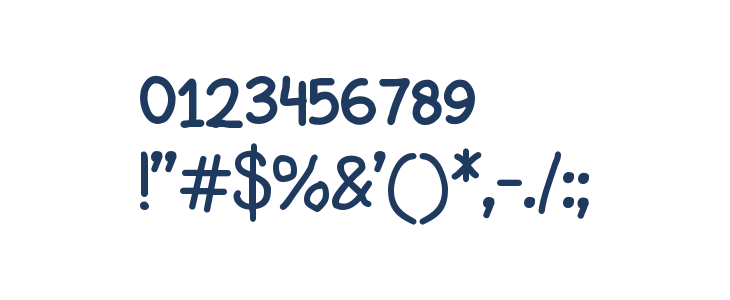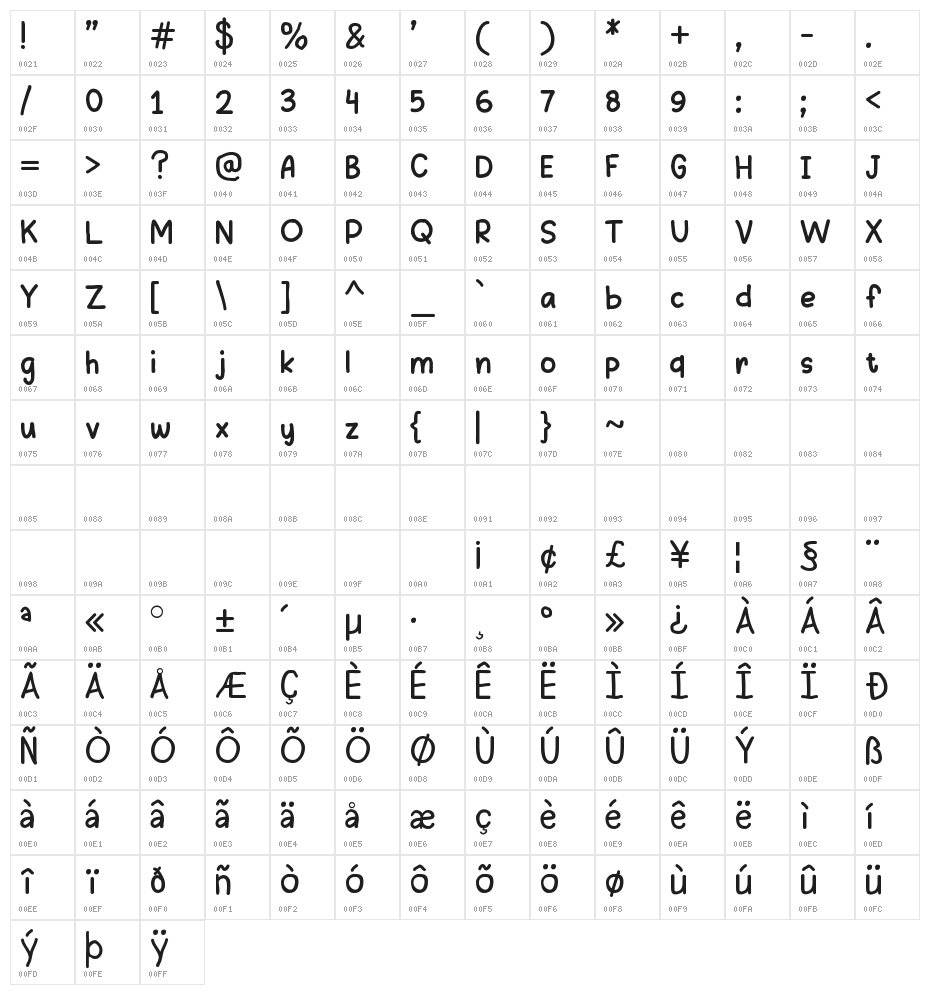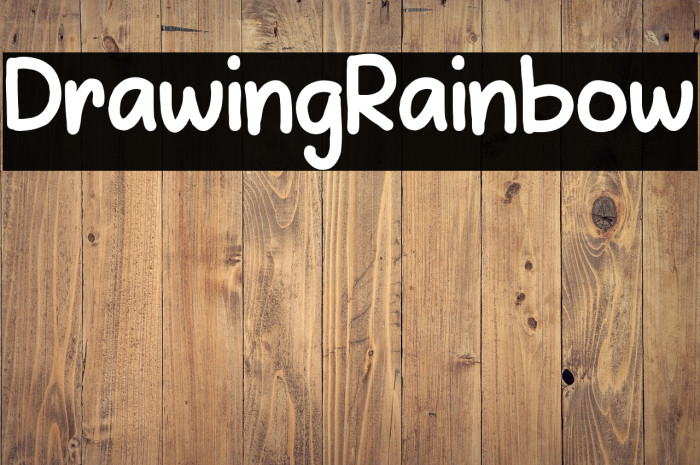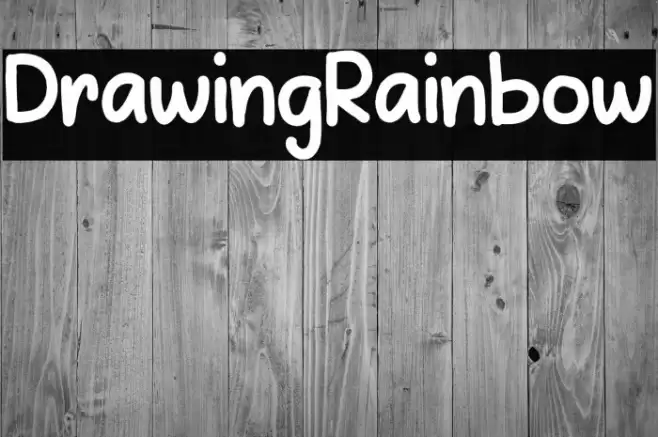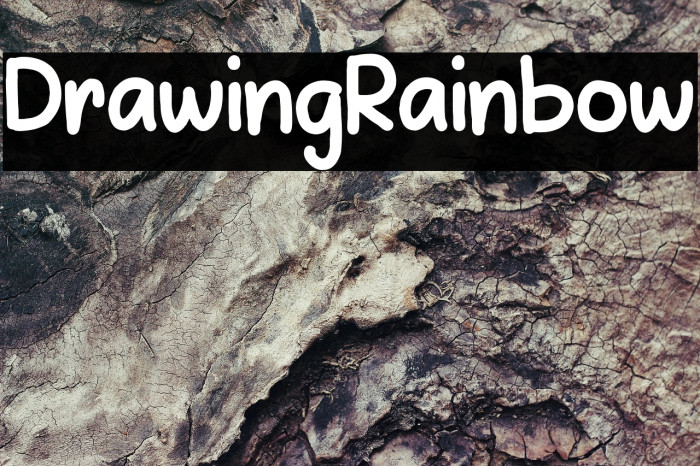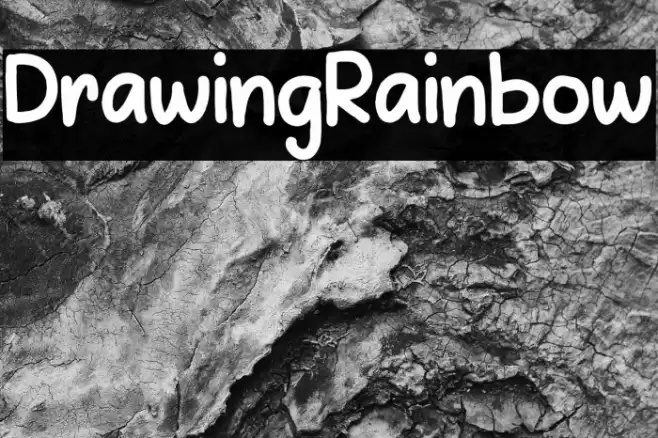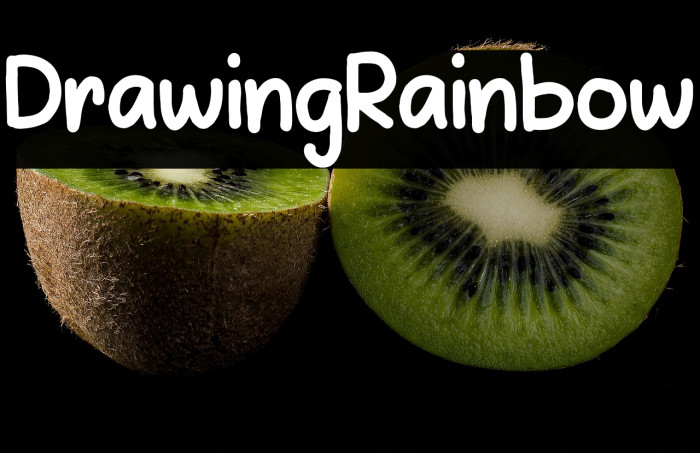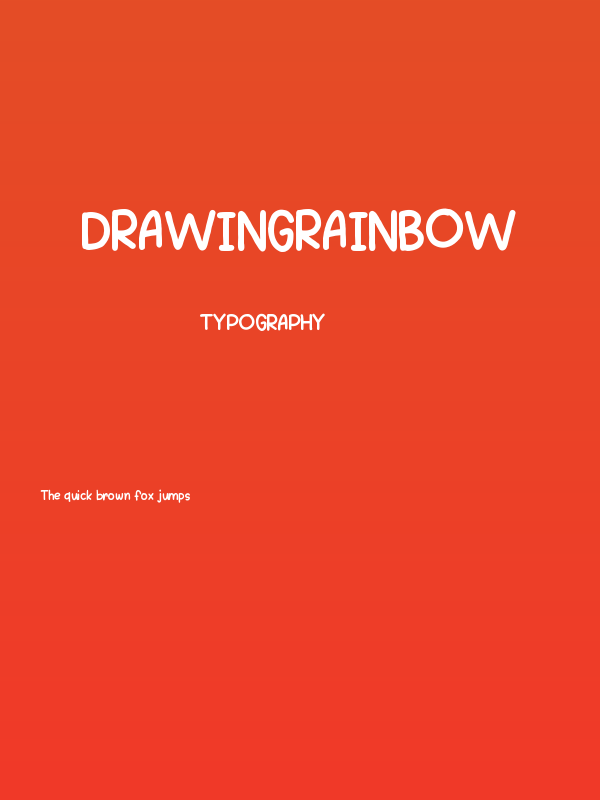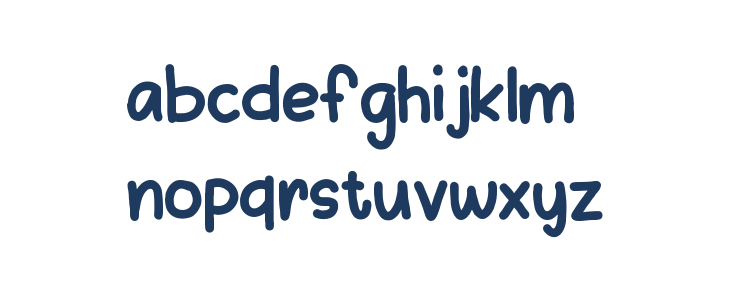
DrawingRainbow Font
DrawingRainbow Description
This playful and whimsical font features rounded, bold characters that convey a sense of fun and creativity. The letters are slightly irregular, giving them a hand-drawn appearance that adds a personal touch. The font maintains consistent thickness throughout, ensuring readability while still offering a unique style. Its informal and friendly design makes it ideal for projects that aim to be approachable and engaging. The characters are well-spaced, providing a balanced look that is easy on the eyes. This font is perfect for children's books, playful branding, or any project that requires a touch of joy and spontaneity.